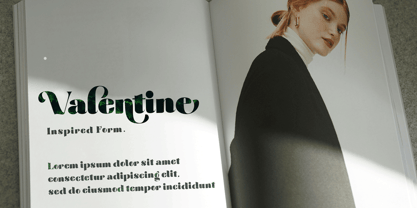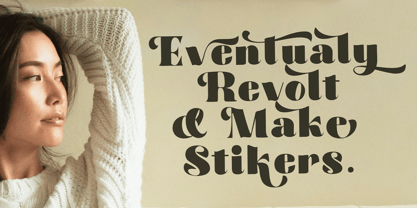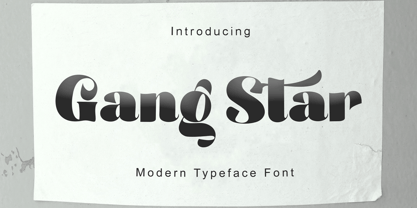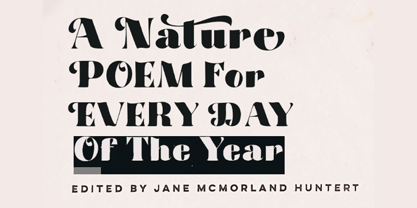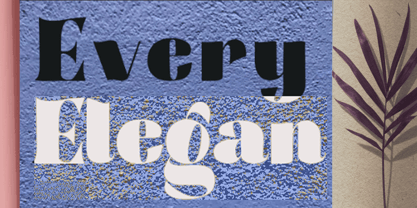
Gang Star
by Sulthan Studio
The Gang Star Font Family was designed by Nasrullah and published by Sulthan Studio. Gang Star contains 2 styles and family package options. More about this family
Make a statement with Gang Star, a typeface designed for the bold. Featuring a rhythmic flow and dramatic silhouettes, this font bridges the gap between retro groovy vibes and futuristic minimalism. Its heavy weight and elegant tapers make it an ideal choice for streetwear labels, album covers, and lifestyle magazines looking for a touch of "modern-vintage" flair.
Designers: Nasrullah
Foundry: Sulthan Studio